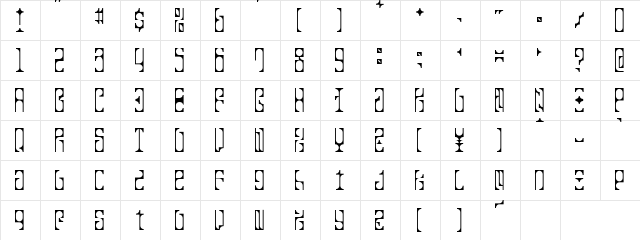
TKO Crazy Regular
Design Context for TKO Crazy Typeface
TKO Crazy is a composed and adaptable typeface that performs quietly and consistently across a wide range of design contexts.